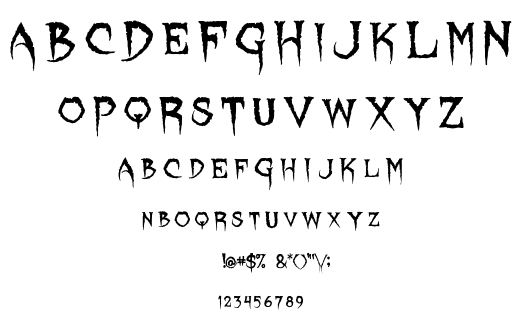
Lycanthrope font.
Lycanthrope Font by Chad Savage
Created 2009, hand-lettered just after Halloween.
This font is intended for specialty and graphic uses. It will look just awful if used in a paragraph format.